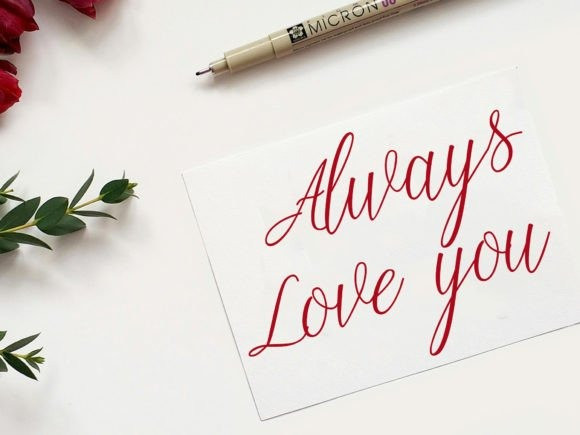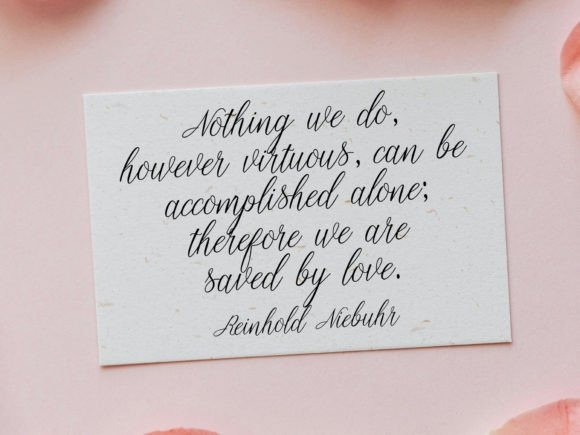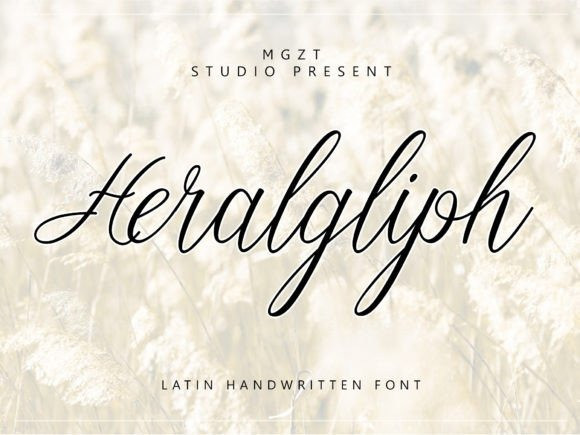
Heralgliph Script Font
Heralgliph Script Font is a sophisticated typeface that blends the timeless elegance of script lettering with the classical forms of Latin characters. Its design is characterized by thin, graceful strokes that convey a sense of delicacy and refinement. Perfect for upscale invitations, luxury branding, and artistic projects, Heralgliph adds a touch of elegance to any text. The flowing, cursive nature of the font offers a sense of movement and fluidity, making it visually appealing and highly legible despite its thin lines. Heralgliph stands out for its balanced proportions and subtle details, giving it a distinctive yet versatile appearance suitable for a variety of high-end applications